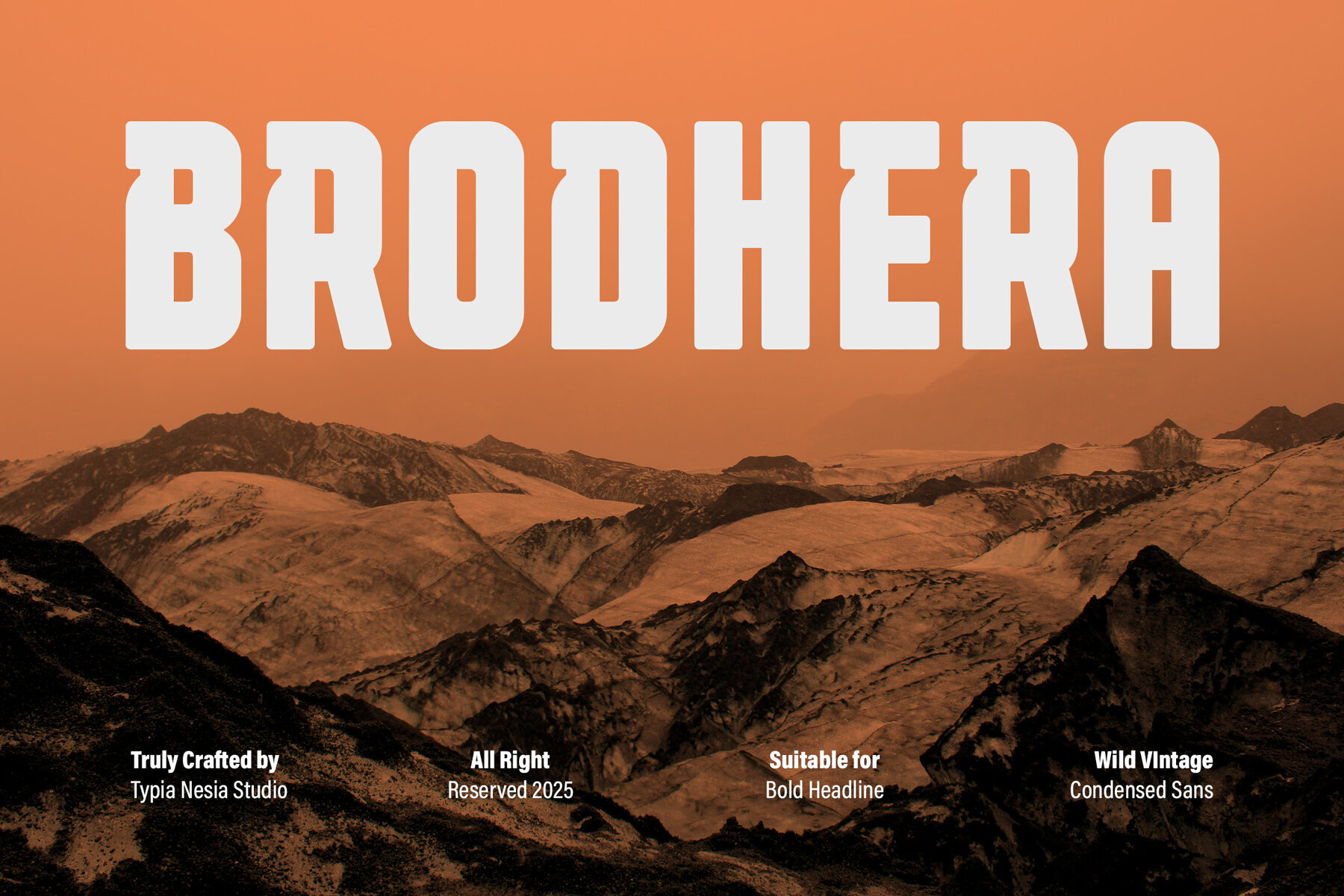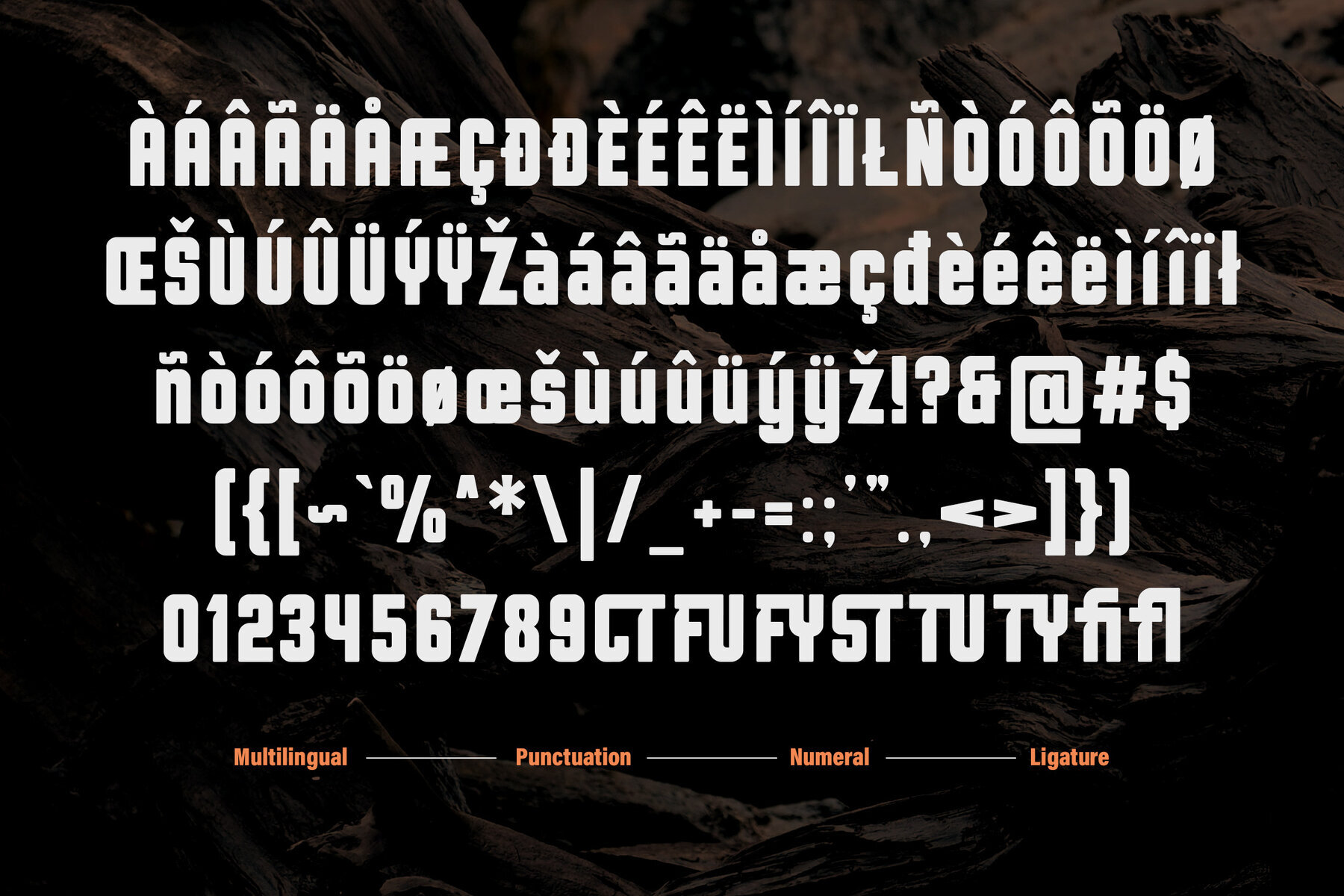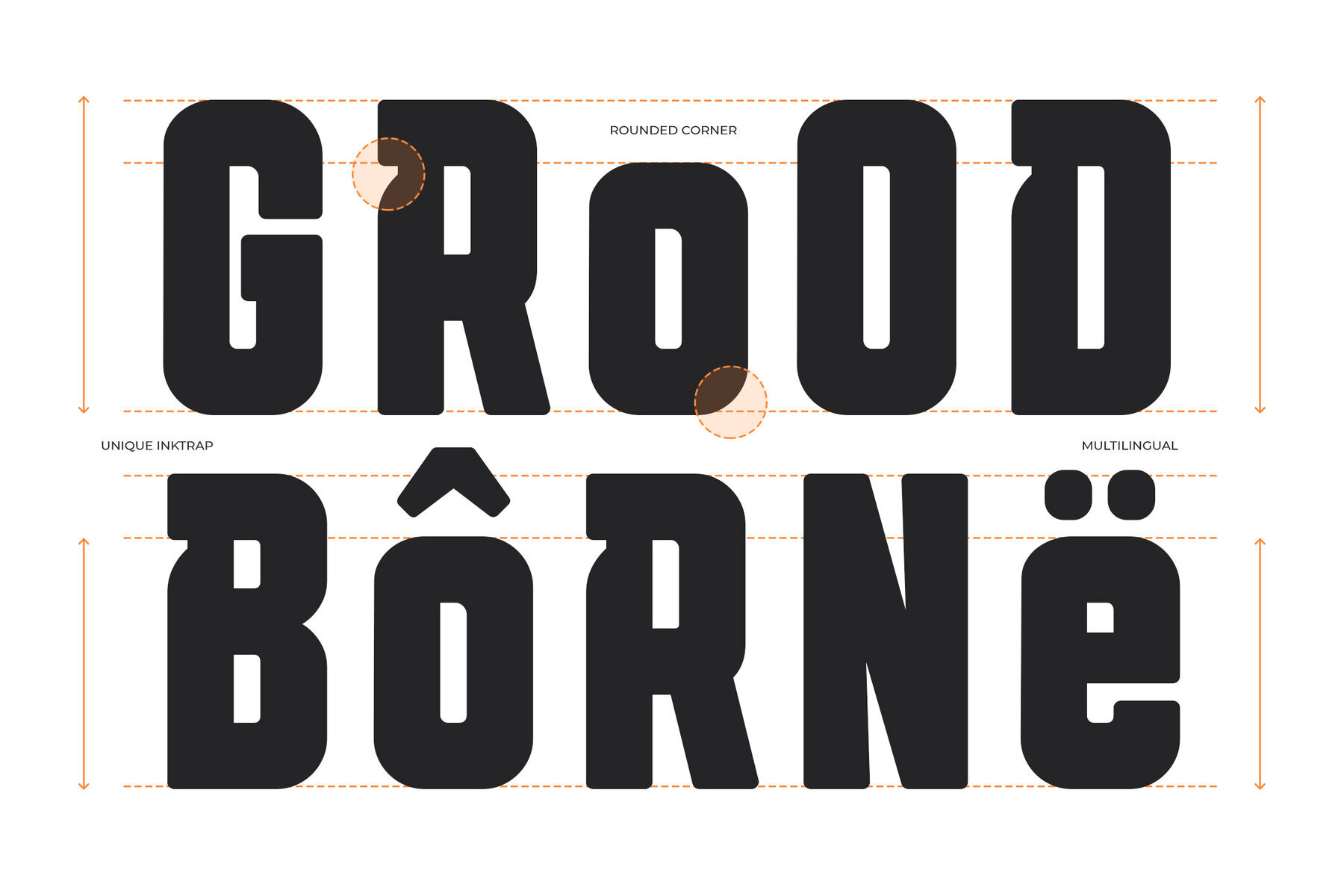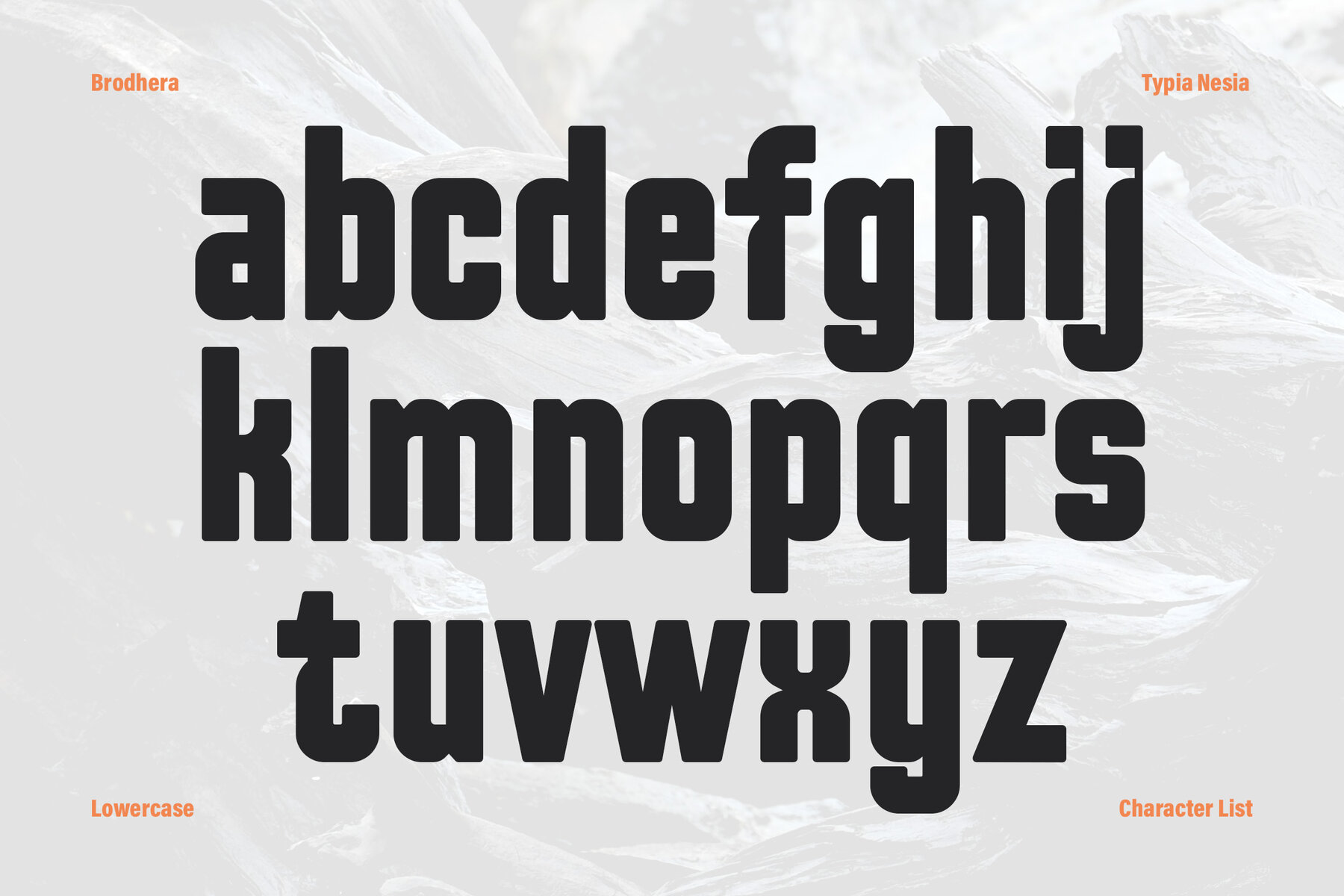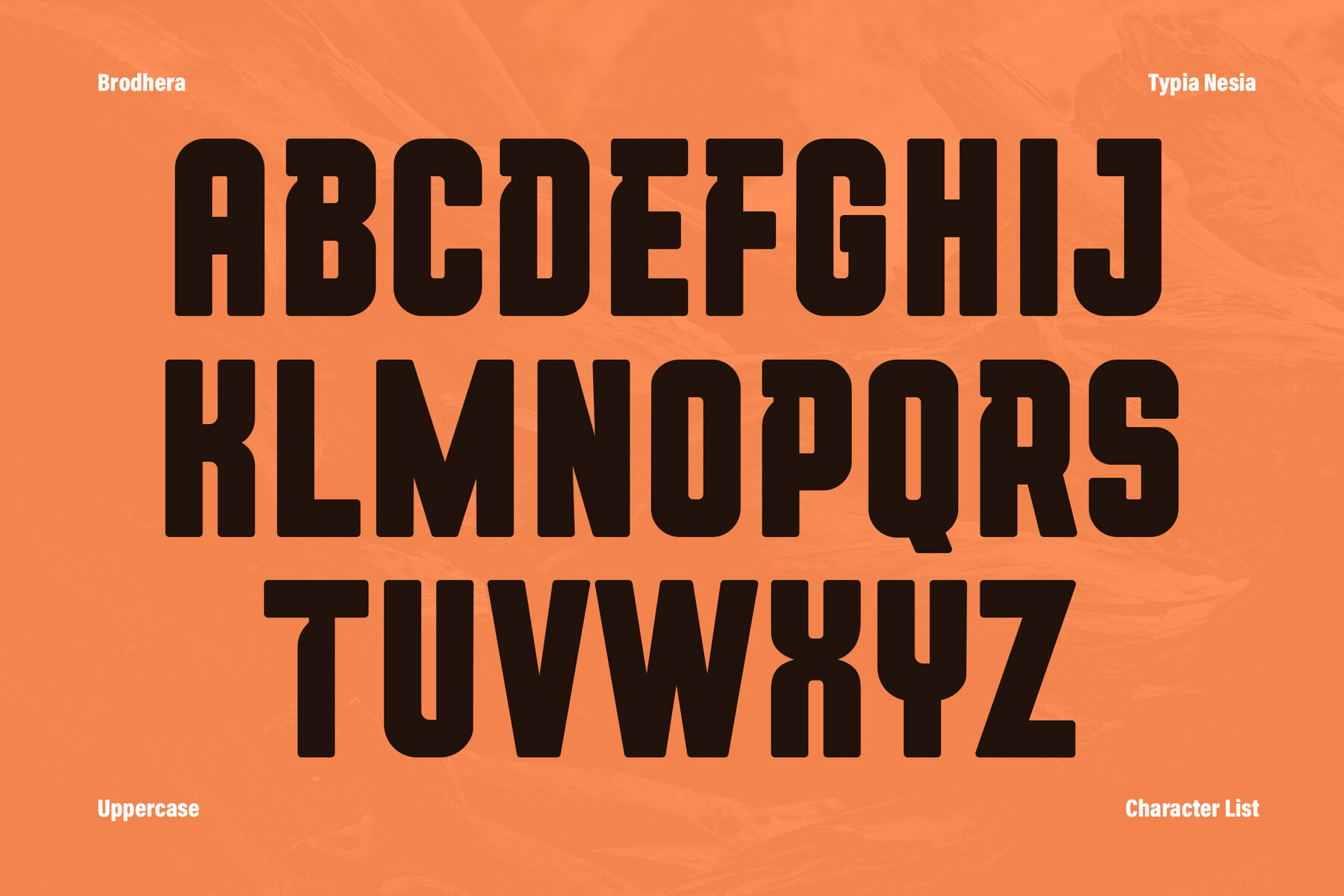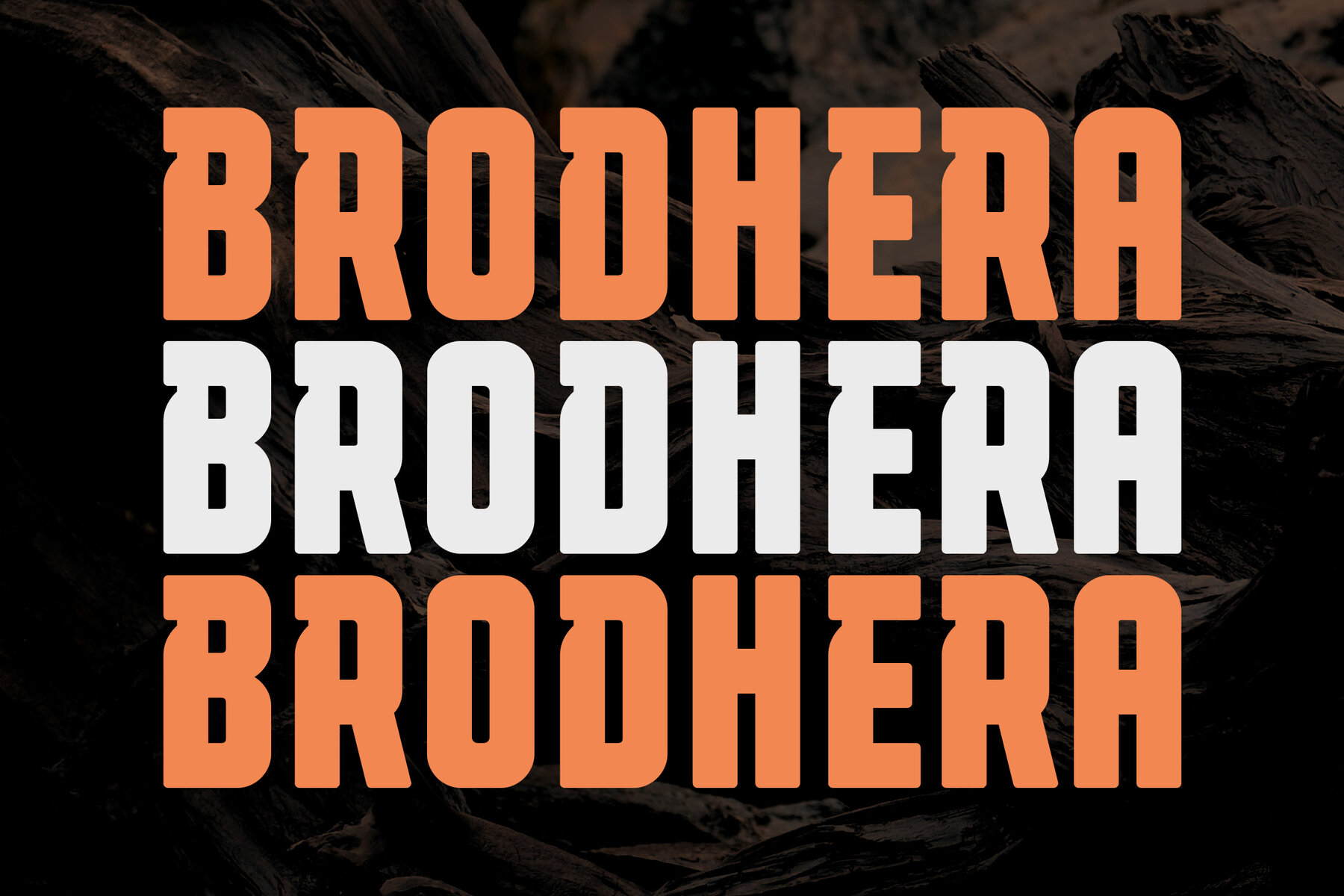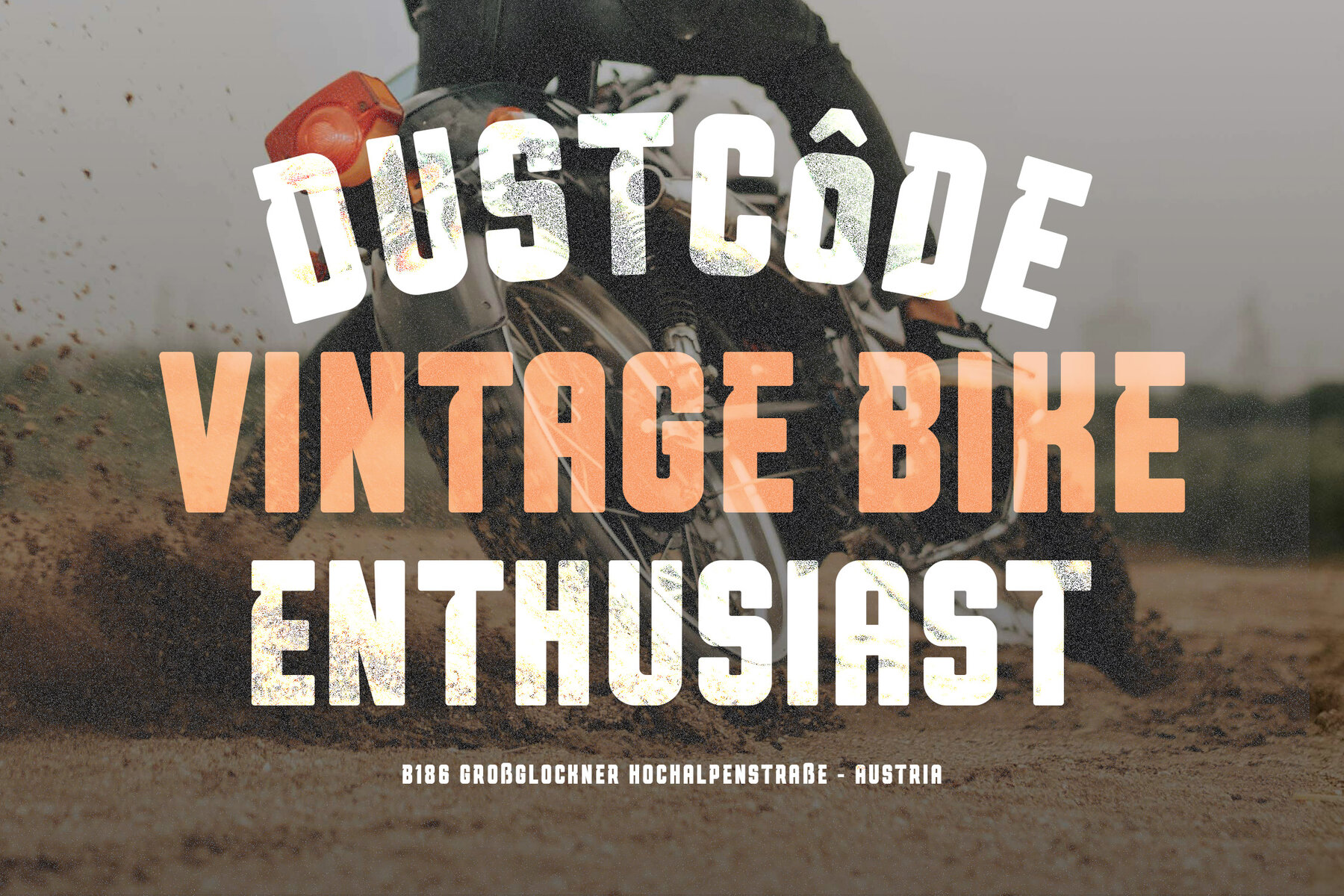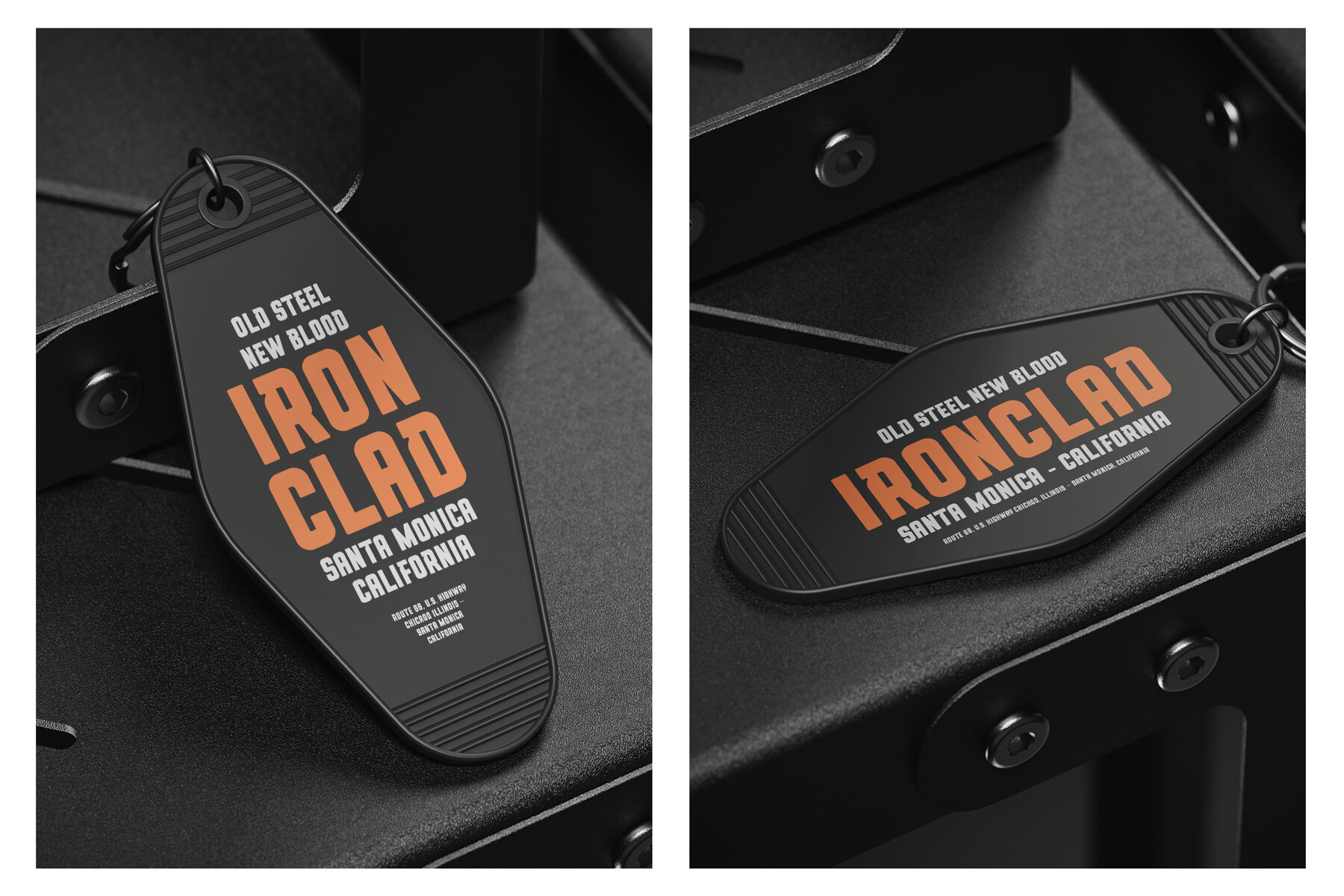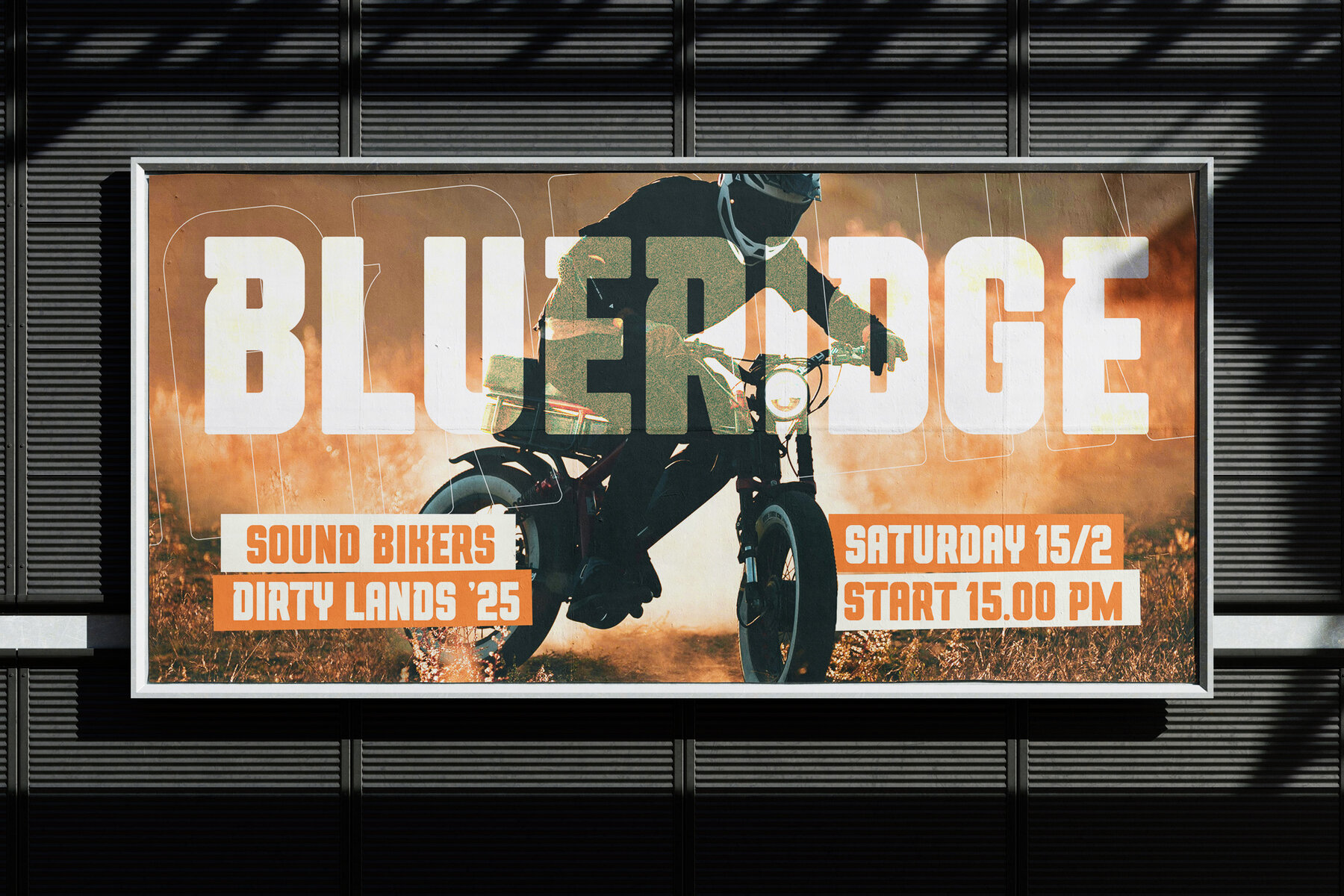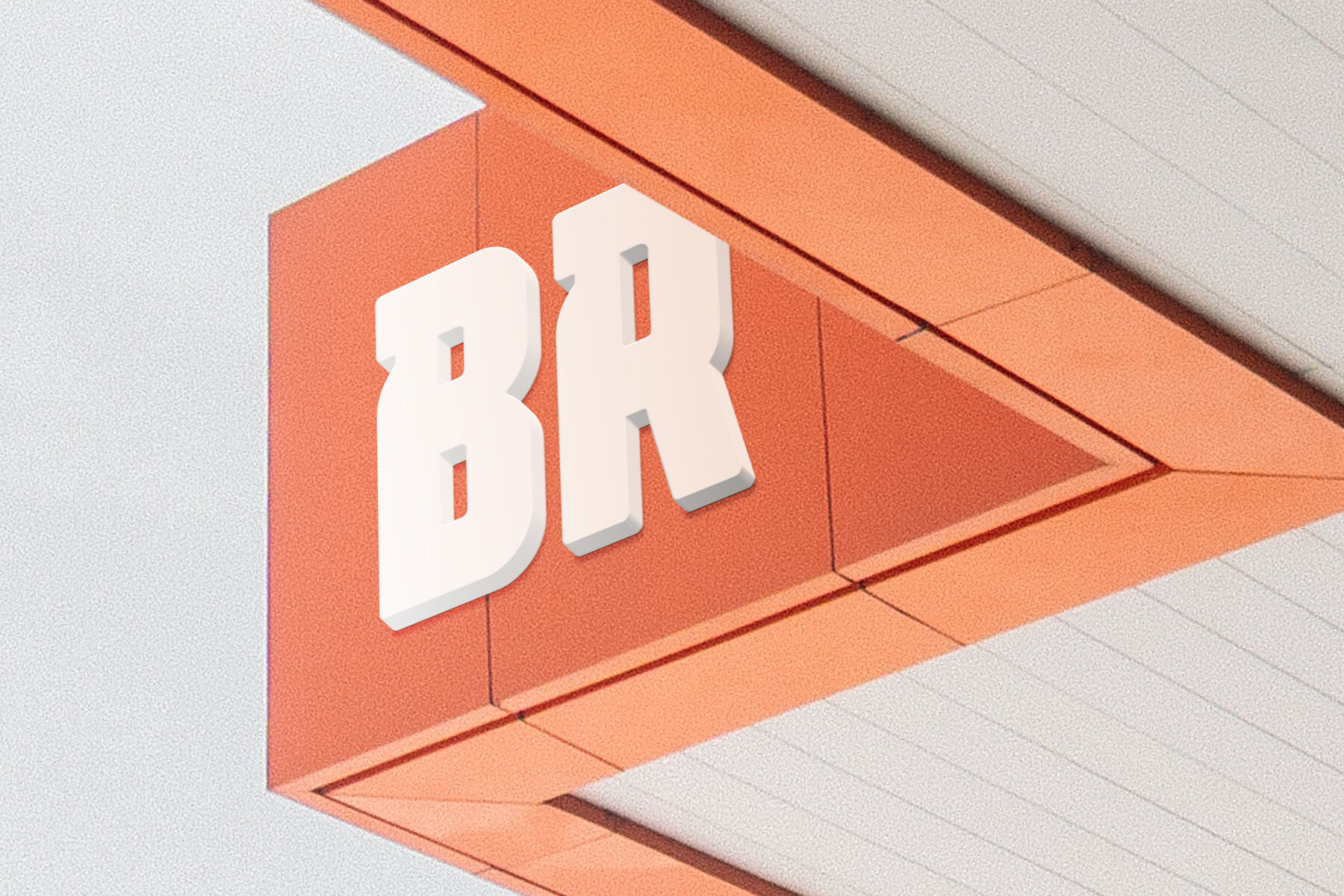
Brodhera Font
Brodhera Regular
Brodhera stands as a cornerstone of classic design with its vintage rounded bold style. It exudes a commanding presence, making it ideal for high-impact displays. This typeface marries a modern urban vibe with a rugged feel, perfectly suited for logos, apparel, and branding projects across industries such as sport, gaming, outdoor adventure, and tech. The condensed format ensures maximum visibility, while its subtly rounded corners offer both clarity and a contemporary flair.Brodhera: Vintage Bold Condensed Sans for Impactful Design